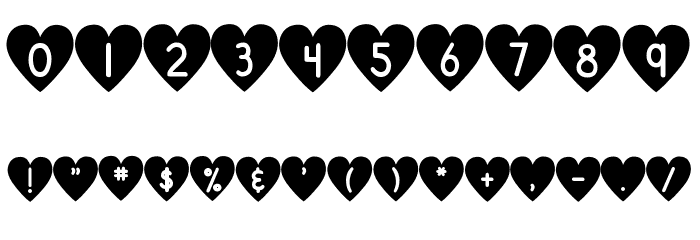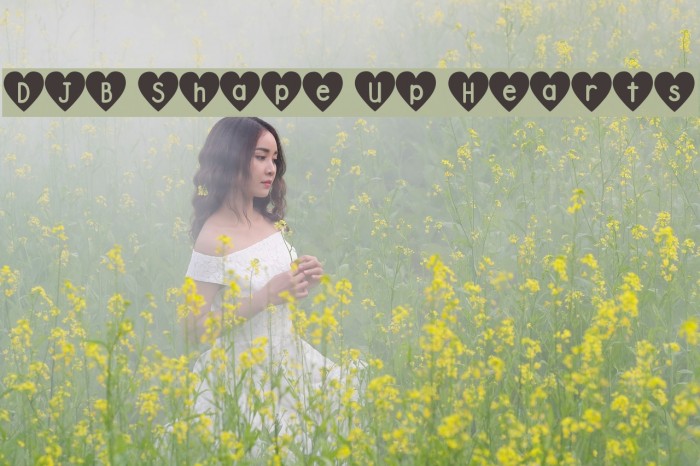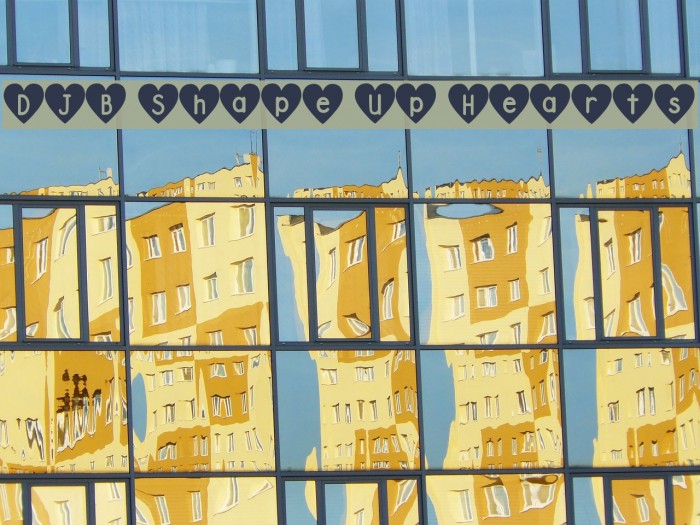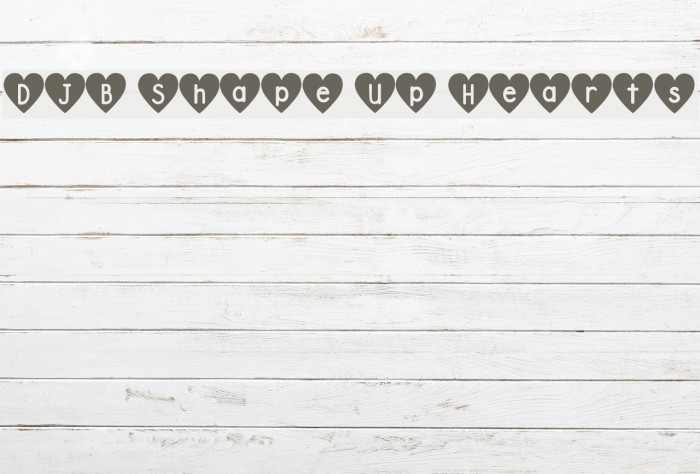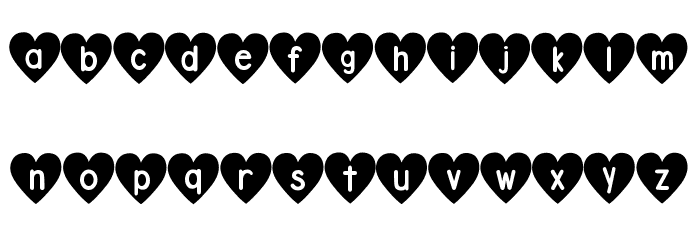
DJB Shape Up Hearts Font
| समग्र शैली | Decorative |
| उपयोग का मामला | Headlines, Logos, Invitations |
| सुझाए गए प्रोजेक्ट | Perfect for Valentine's Day cards, wedding invitations, playful branding, children's party invitations, and any project that requires a touch of whimsy and romance. |